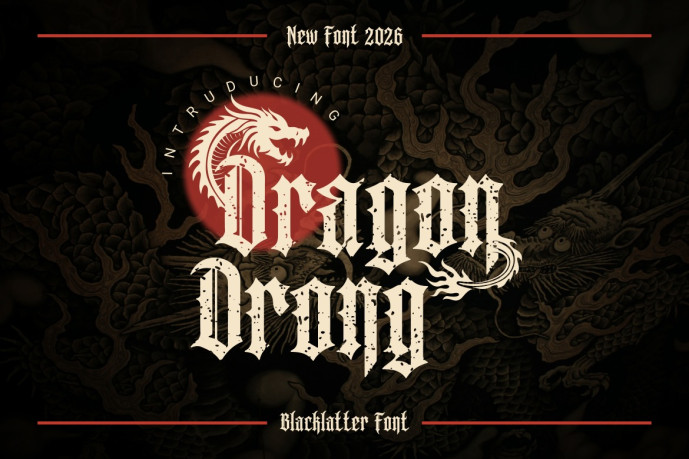
DragonDrong – Blackletter Font
Designer: Galih Ardika
Introducing DragonDrong – Blackletter Font is a modern serif typeface crafted for timeless elegance and visual storytelling. Its clean contrast and subtle ligatures make it ideal for branding, fashion editorials, and luxury packaging. Designed with cinematic grace, this font evokes sophistication and aesthetic harmony in every composition.
Font Features
.Uppercase & Lowercase
. Alternatives & Ligatures
. Numbers & Punctuation
. Multilingual Support
Perfect For: Luxury branding, editorial headlines, packaging, and logo design.